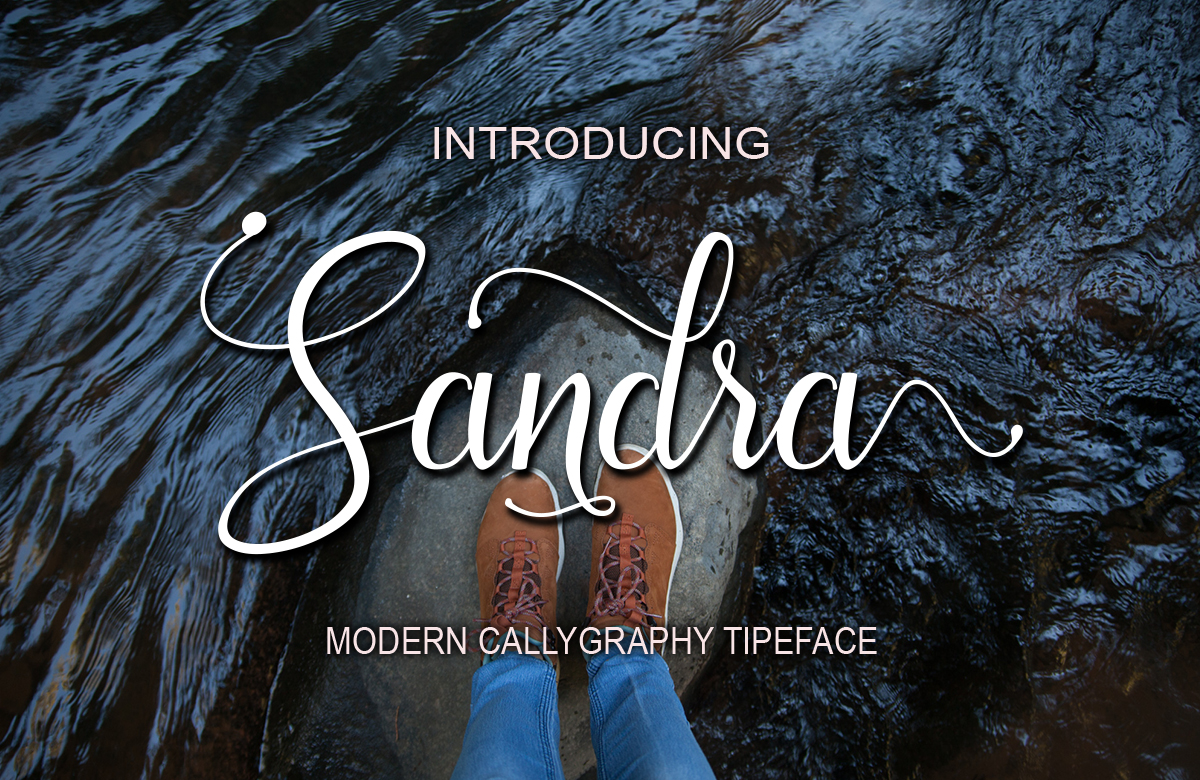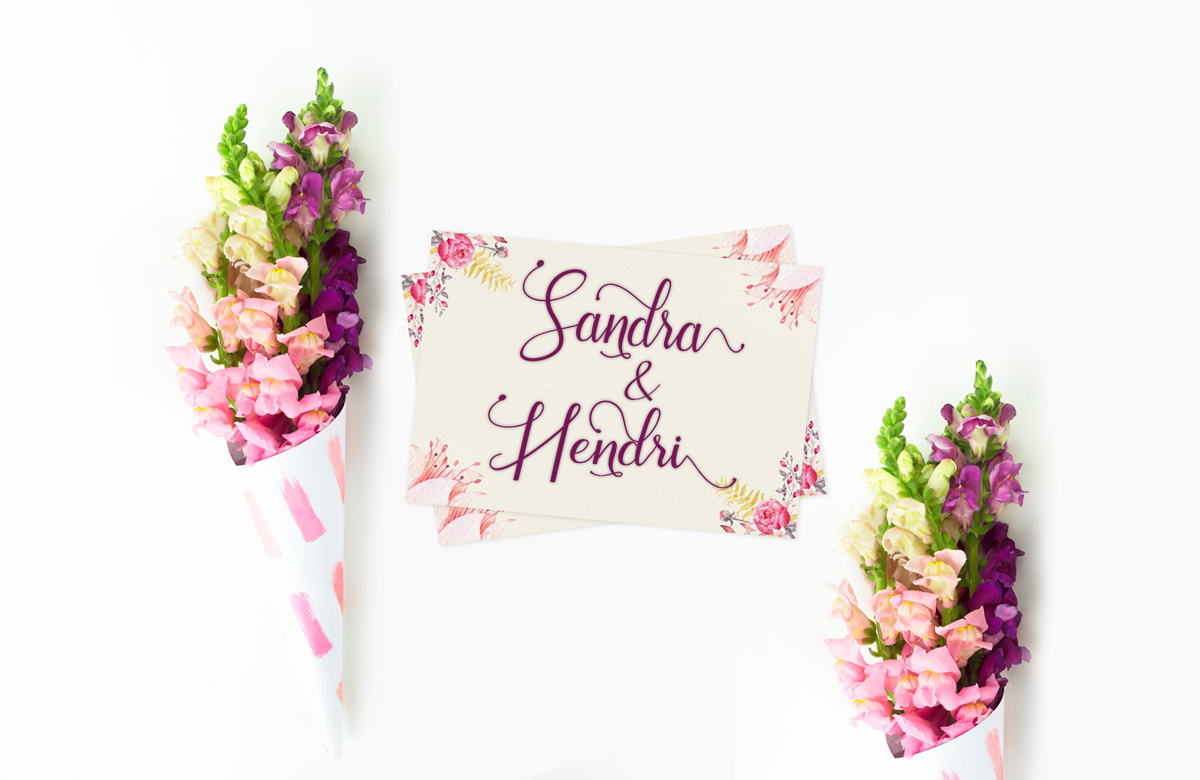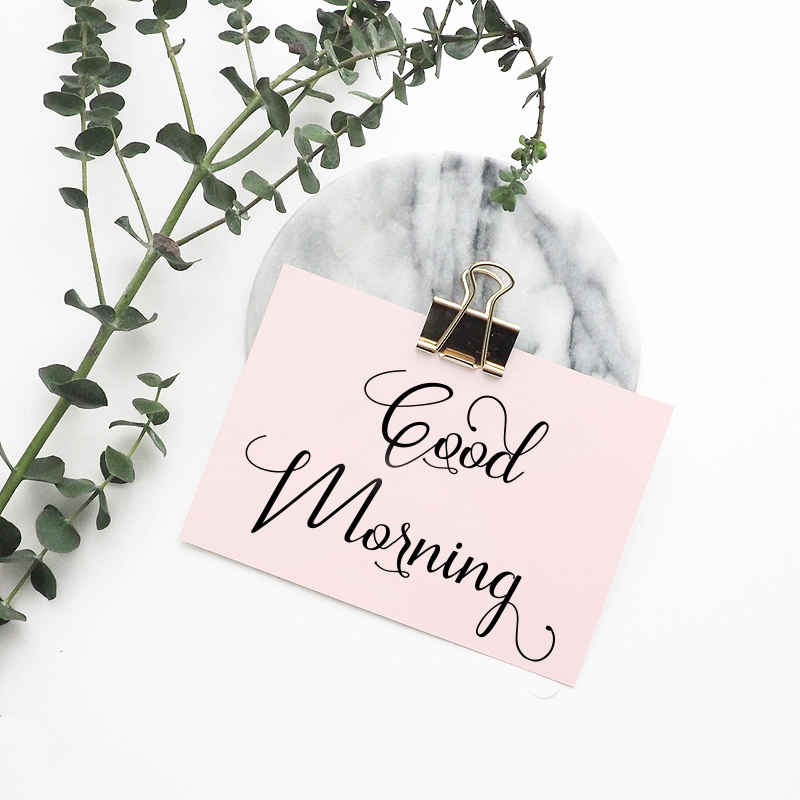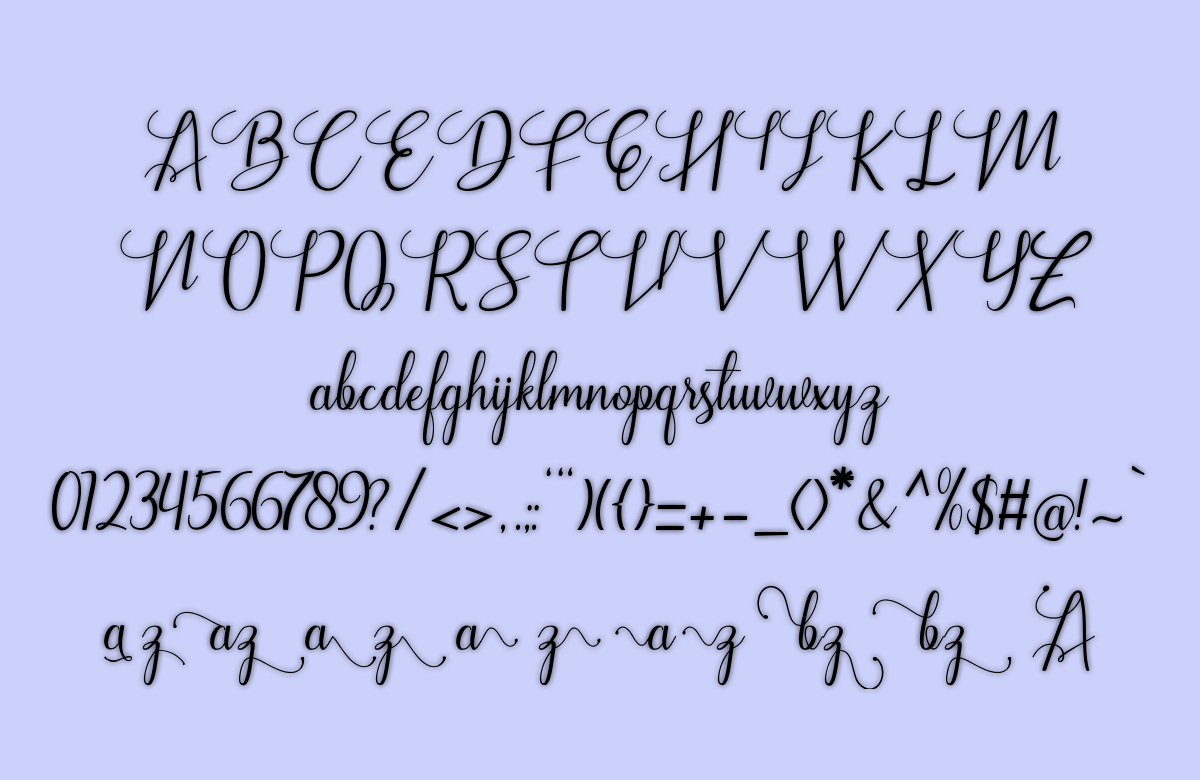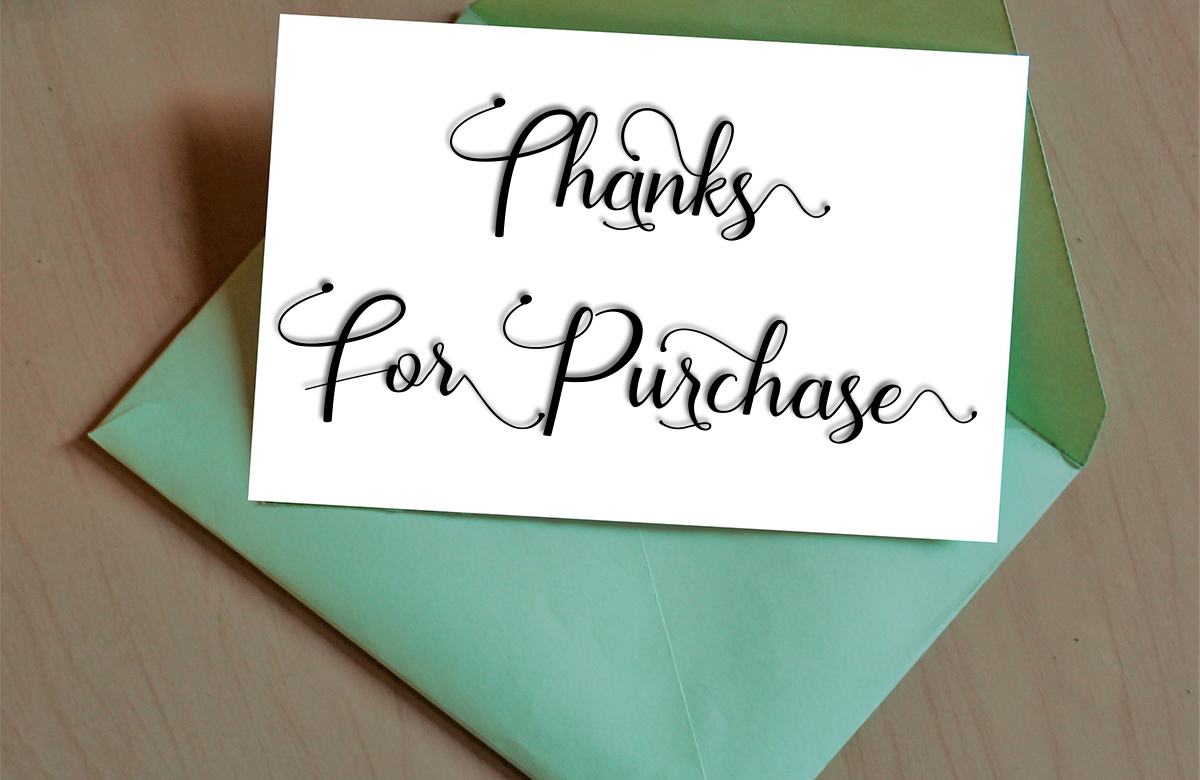
Sandra Font
About Sandra Font
Sandra is a beautiful and fresh script font, crafted with handmade calligraphy. This font has a ton of decorative characters with dancing baselines, making it an ideal font for feminine yet carefree designs.